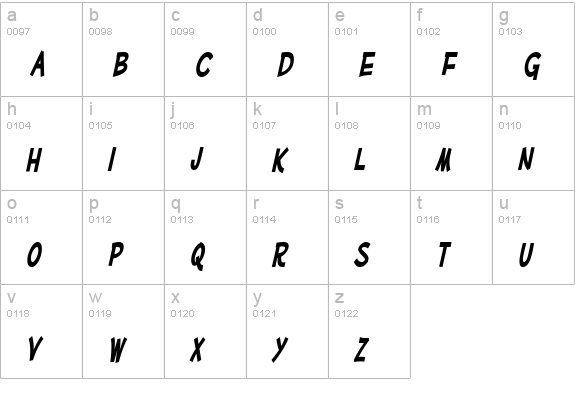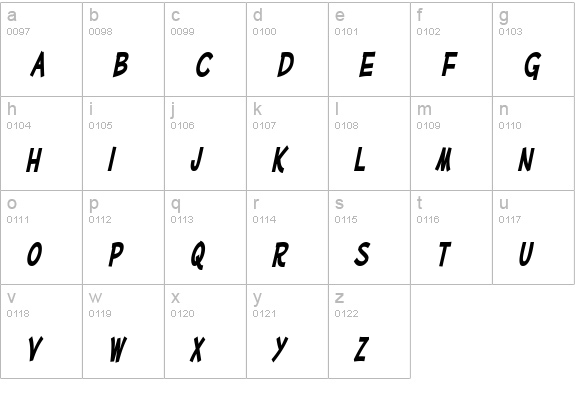
Mufferaw Cnd Bold Italic is a strong, high-contrast, italic variant in the Mufferaw typeface family \xE2\x80\x94 well suited to headlines, attention-grabbing titles, and strong calls-to-action.
Introducing Mufferaw Cnd Bold Italic font - a bold and dynamic typeface that exudes confidence and strength. This eye-catching font is perfect for making a statement in your designs, whether it's for branding, posters, headlines, or any creative project that requires a bold touch. With its distinctive italicized style and strong presence, Mufferaw Cnd Bold Italic font commands attention and adds a touch of sophistication to any design. Its sleek and modern appearance makes it a versatile choice for a wide range of applications. Best of all, Mufferaw Cnd Bold Italic font is available for free download at FontsMarket.com. So why wait? Add this striking font to your collection today and elevate your designs to the next level!